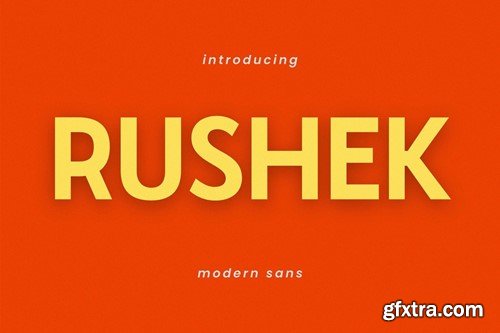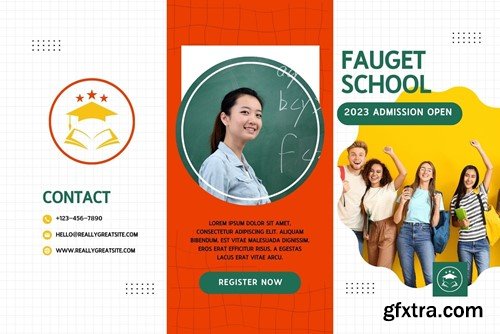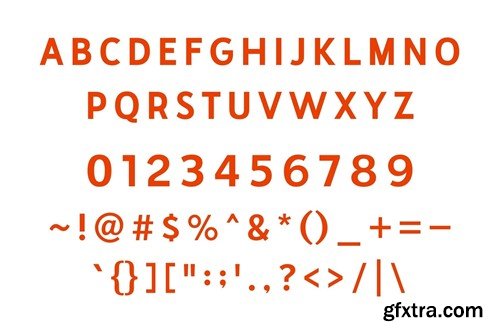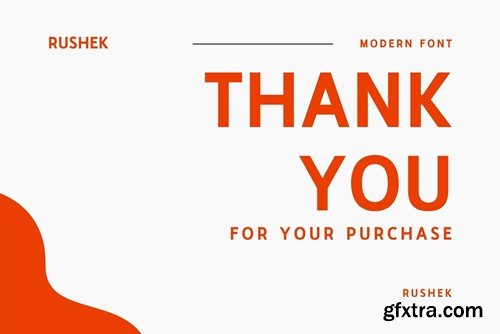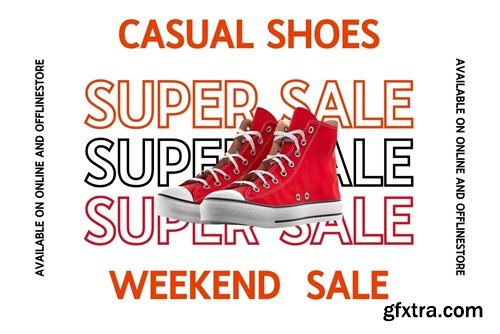
Rushek 现代未来主义无衬线字体 YGLW6ZJ
This typeface encapsulates a rhythm that is symmetrical and balanced due to a unique mix of different sources of inspiration. Proportions are precisely adjusted with subtle contours and subtle contrasts. These shapes give the font an attractive look without compromising on elegance and minimalism, ensuring that any glyph will work well in any graphic design purpose such as brochures, videos, advertising branding, logos, magazines, layout designs, posters, post templates, games and others What's Included: OTF/TTF Files Character standards Numerals & Punctuation Accented Characters (West Europe) Works on PC & Mac Recommended using Adobe Illustrator or Adobe Photoshop. Wish you enjoy our font and if you have any questions, don't hesitate to drop a message & I'm happy to help :) Thank You!